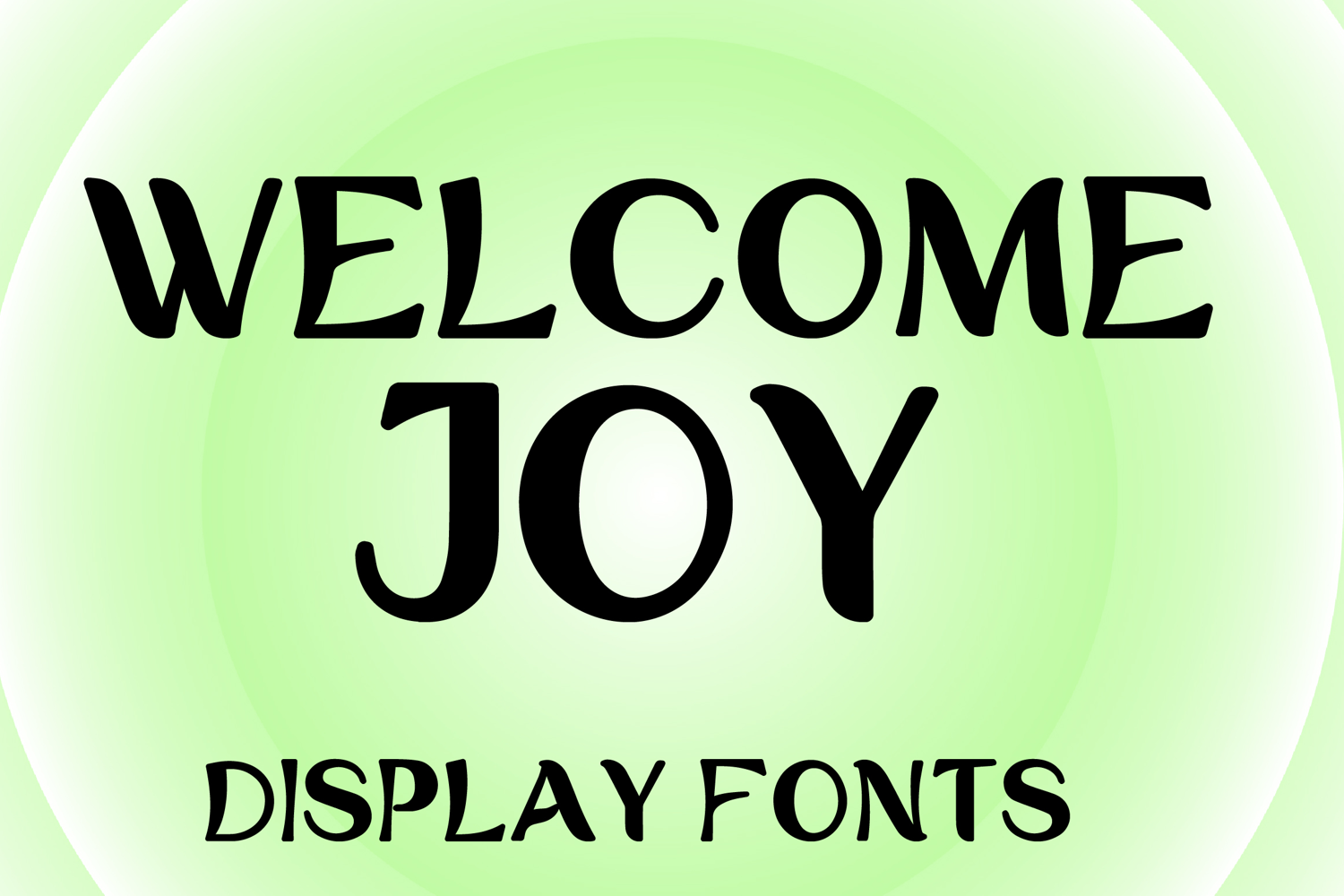
WELCOME JOY
WELCOME JOY is a clean decorative display font with a soft modern-retro style and elegant handcrafted charm. Its uppercase letterforms feature smooth curves, gentle tapered ends, and subtle playful details that create a warm, cheerful, and eye-catching look. Designed with uppercase letters A–Z and numbers 0–9, WELCOME JOY is perfect for branding, posters, packaging, invitations, quotes, social media graphics, book covers, and creative projects that need a friendly, stylish, and memorable statement.